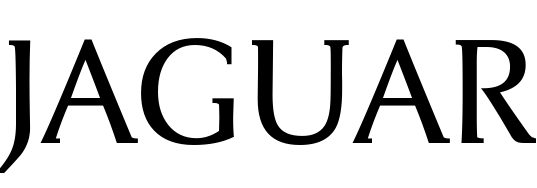
Jaguar Font
AutomobileJaguar is a luxury vehicle brand of Jaguar Land Rover, a British multinational car manufacturer. It was founded in 1922 as Swallow Sidecar Company by Sir William Lyons. Between 1945 and 2001, Jaguar used the above logo, which features a leaping Jaguar and the wordmark beneath it.
The leaping Jaguar represents the car's speed, strength, and quickness, while the wordmark's font is similar to Jaguar JC, a free font available in three styles: Jaguar JC Book, Jaguar JC Book Italic, and Jaguar JC Book Bold. You can download the font for free in the Fonts Used Section. The company's current logo was introduced in 2012 and features a metallic fill and shadow icon, along with a proprietary font designed by Fontsmith.